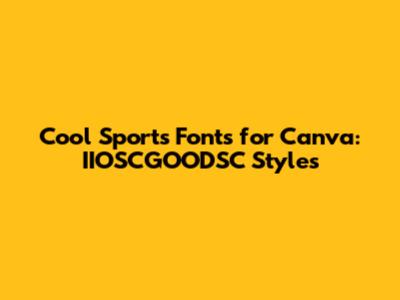
Hey guys! Are you looking to spice up your sports-themed designs on Canva? You've come to the right place! Let's dive into the world of IIOSCGOODSC sports fonts and how you can use them to create awesome visuals. Whether you're making posters, social media graphics, or team logos, the right font can make all the difference. So, buckle up and get ready to explore some fantastic options that will take your designs to the next level.
Choosing the right font for your sports designs is super important because it sets the entire tone and feel of your project. Think about it: a bold, dynamic font can convey energy and excitement, while a sleek, modern font might suggest professionalism and precision. The font you pick should match the spirit of the sport or team you're representing. For example, if you're designing something for a high-energy sport like basketball or soccer, you'll want a font that screams action and movement. On the other hand, if you're working on a design for a more strategic sport like golf or chess (yes, chess can be sporty!), you might opt for a font that's clean and sophisticated.
Moreover, the right font can significantly enhance readability. Imagine a poster with a fantastic image but an illegible font – it's a wasted opportunity! Ensure your font is clear and easy to read, even from a distance. This is particularly crucial for designs that will be viewed quickly, such as social media posts or banners at a sports event. Consider the font size, spacing, and contrast against the background to maximize readability. Furthermore, the right font can strengthen your brand identity. If you're creating designs for a sports team or organization, using consistent fonts across all your materials will help build a recognizable and professional image. Think about famous sports brands – their logos and marketing materials always use specific fonts that are instantly recognizable. By carefully selecting and consistently using your fonts, you can reinforce your brand's personality and create a cohesive visual identity. So, take your time to explore different font options and see how they can elevate your sports designs!
Understanding IIOSCGOODSC Sports Fonts
So, what exactly are IIOSCGOODSC sports fonts? Well, the term IIOSCGOODSC seems to be a unique identifier or perhaps a specific style that someone has curated. While it might not be a widely recognized term, we can interpret it as a collection of fonts that embody the characteristics typically associated with sports-related designs. These fonts often feature bold, strong lines, a sense of movement, and a dynamic appearance. They are designed to capture the energy and excitement of athletic activities. Imagine fonts that look like they're in motion, with slanted lines or a slightly distressed texture that gives them a sense of speed and intensity. These are the kinds of fonts that would fall under the IIOSCGOODSC umbrella.
When you're looking for IIOSCGOODSC-style fonts, think about fonts that have a powerful visual impact. Fonts with sharp edges and a forward-leaning stance can convey a sense of aggression and determination, perfect for sports teams or competitive events. Fonts with a rounded, sans-serif design might suggest a more friendly and approachable vibe, suitable for youth sports or community events. Also, consider fonts that have a vintage or retro feel. These can add a touch of nostalgia and authenticity to your designs, especially if you're working on a project that celebrates the history of a particular sport or team. Look for fonts that mimic the styles used in old-school sports posters or jerseys. To find these types of fonts, you can start by searching online font libraries using keywords like "sports font," "athletic font," "varsity font," or "retro sports font." Explore different options and see which ones resonate with the specific style and message you're trying to convey. Don't be afraid to experiment and mix and match different fonts to create a unique and eye-catching design. The goal is to find fonts that not only look great but also effectively communicate the spirit and energy of the sport you're representing.
Top Font Recommendations for Sports Designs on Canva
Alright, let's get down to some specific font recommendations you can find on Canva that will give you that IIOSCGOODSC vibe. Here are a few of my favorites: First up is Bebas Neue. This is a super popular sans-serif font that's known for its clean, tall, and narrow appearance. It's incredibly versatile and works well for headlines, titles, and even body text. Its bold and modern style makes it perfect for sports designs, especially those that need a touch of sophistication. Another great option is Montserrat. This is another sans-serif font that's clean, modern, and highly readable. It comes in a variety of weights, from light to bold, so you can easily customize it to fit your specific needs. Montserrat is a great choice for sports designs that need a clean and professional look.
Then we have Oswald, a classic sans-serif font that's slightly condensed, giving it a unique and distinctive appearance. It's perfect for headlines and titles, and its strong, bold lines make it a great choice for sports-related designs. League Gothic is a bold and impactful font that's perfect for making a statement. It has a vintage feel and a slightly distressed texture, which adds character and personality to your designs. League Gothic is a great choice for sports designs that need a retro or vintage vibe. Don't overlook Roboto. This is a versatile sans-serif font that's clean, modern, and highly readable. It comes in a variety of weights and styles, making it a great choice for a wide range of sports designs. Roboto is a great option if you need a font that's both functional and stylish. For a more playful and energetic look, check out Luckiest Guy. This is a fun and whimsical font that's perfect for youth sports or community events. Its bold, rounded letters and friendly appearance make it a great choice for designs that need a touch of fun. And lastly, Anton. This is a sans-serif font that's known for its bold, condensed appearance. It's perfect for headlines and titles, and its strong, impactful lines make it a great choice for sports designs that need to grab attention. These are just a few of the many great sports fonts you can find on Canva. Be sure to explore different options and experiment with different styles to find the perfect font for your project!
Combining Fonts for Impactful Designs
To really make your sports designs pop, try combining different fonts. This can add visual interest and help create a more dynamic and engaging look. But, you need to do it right! Start by pairing a bold headline font with a simpler body text font. For example, you could use Bebas Neue for your headlines and Montserrat for your body text. This creates a nice contrast and ensures that your headlines stand out while your body text remains readable. Another great tip is to use different weights of the same font family. For example, you could use Oswald Bold for your headlines and Oswald Regular for your body text. This creates a cohesive look while still adding visual interest.